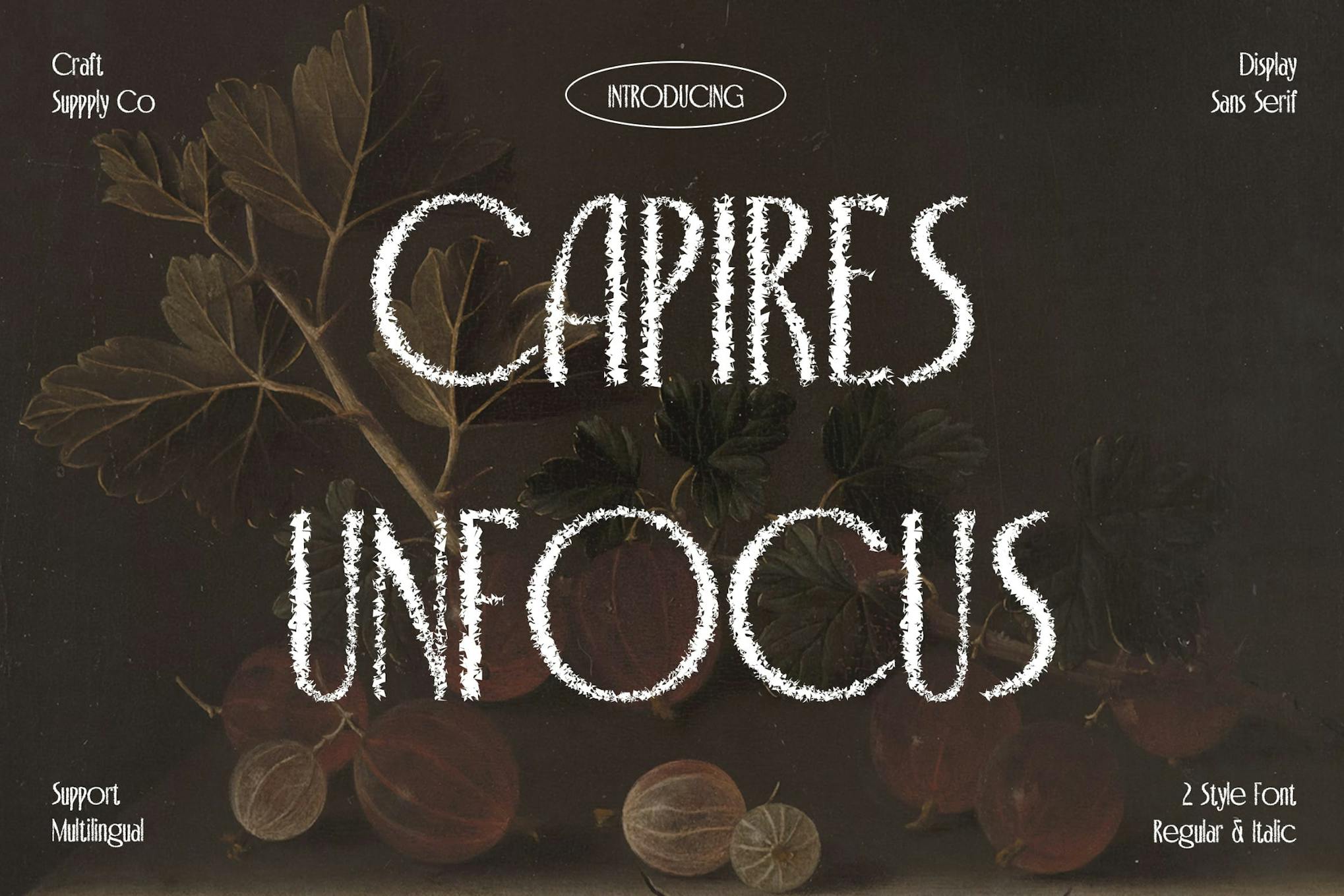
Capires Unfocus Font
Capires Unfocus Font captures strategic consulting firm branding, acquisition planning documents, investment portfolio presentations, corporate takeover materials, business development campaigns, venture capital communications, strategic partnership proposals, mergers and acquisitions documentation, executive capture strategies, market domination plans, competitive intelligence reports, and strategic marketing materials where strategic capture and focused ambition create powerful business conquest experiences.
This strategic typeface generates excitement through its perfect embodiment of business capture methodology and strategic focus that creates typography designed for corporate conquest and market domination planning. Capires Unfocus Font captures the essence of strategic acquisition with its precisely blurred letterforms that suggest the focused intensity of corporate strategists and the atmospheric tension surrounding high-stakes business negotiations. The font's strategic design approach incorporates elements that evoke boardroom dynamics, tactical planning, and the calculated precision required for successful business captures and market acquisitions. Its distinctive character reflects the ambition, intelligence, and strategic thinking that define authentic corporate leadership and business conquest excellence.
The Capires Unfocus Font family encompasses multiple strategic variations including Regular, Light, Medium, Bold, and Strategic versions, each maintaining the font's characteristic business focus while offering different levels of strategic impact. The collection features capture-inspired blur effects, strategic atmospheric treatments, and conquest textures that enhance its corporate aesthetic. Additional elements include target symbols, strategic ornaments, acquisition decorative borders, and conquest flourishes that reinforce the font's connection to business strategy and corporate capture methodology.
Strategic business leaders and acquisition specialists consistently select Capires Unfocus Font Free Download for projects requiring typography that communicates strategic capability and corporate conquest expertise. This remarkable typeface excels in applications where establishing business credibility and conveying strategic intelligence are essential for corporate and investment success. The font's strategic qualities make it particularly effective for consulting firms, investment companies, and strategic development organizations targeting audiences who appreciate business conquest and strategic market domination.
Whether you're designing strategic business presentations, creating acquisition planning materials, developing corporate conquest campaigns, or crafting strategic communications, Capires Unfocus Font delivers unmatched strategic authenticity. Its ability to convey business capture expertise, strategic focus, and corporate conquest capability makes it invaluable for business strategists seeking typography that genuinely reflects the precision and ambition of strategic market capture. The font's strategic presence ensures your designs will communicate the focused intelligence and conquest capability that define exceptional strategic communications and corporate acquisition experiences.